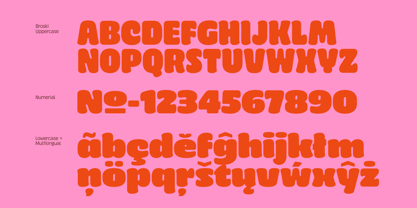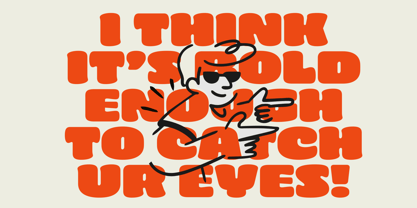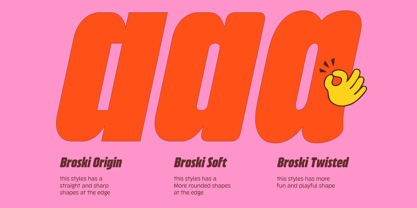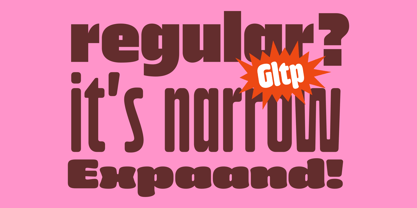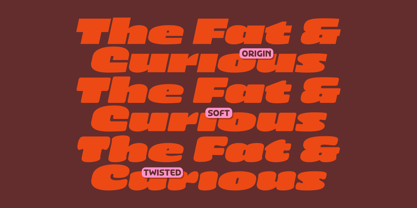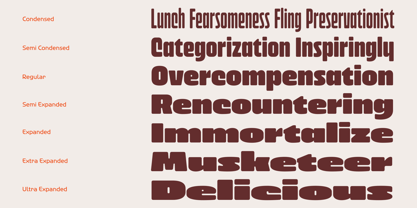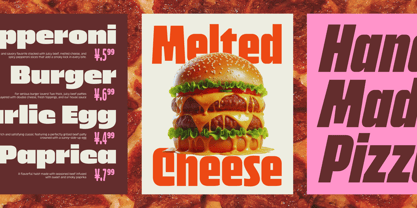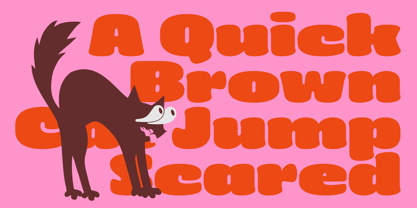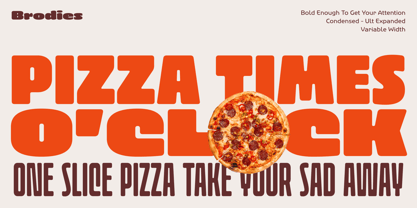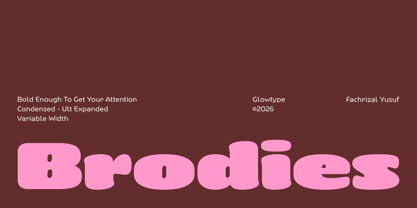
Brodies
The Brodies Font Family was designed by Fachrizal Yusuf and published by Glowtype. Brodies contains 42 styles and family package options. More about this family
Brodies is a bold, high-impact display typeface designed to command attention through confident shapes and expressive versatility. Built as a variable font system, it features two axes—width and slant—allowing seamless transitions from condensed to ultra expanded proportions, while introducing dynamic movement through adjustable angles.
At its core, Brodies offers three distinct personalities:
1. Origin, with its sharp and structured edges give serious, strong and bold vibe.
2. Soft, presenting smoother, more rounded forms.
3. Twisted, bringing a playful and energetic character. Each style shares a unified construction, ensuring consistency while delivering unique visual tones.
With a total of 42 styles, Brodies provides a wide spectrum of expression—from clean and controlled to bold and unconventional. Its chunky geometry, generous counters, and strong silhouettes make it particularly effective for headlines, branding, posters, and contemporary visual identities. Balancing precision with personality, Brodies is crafted to be both functional and memorable across a variety of creative applications.